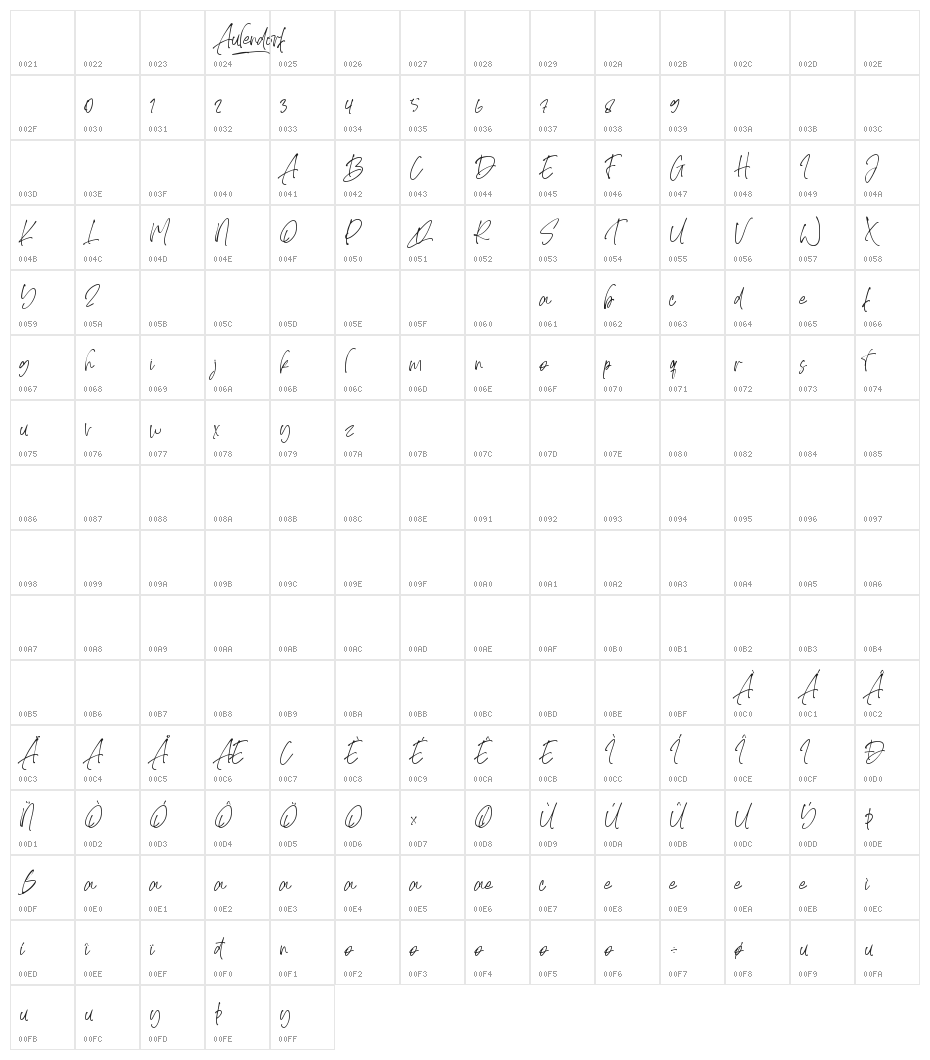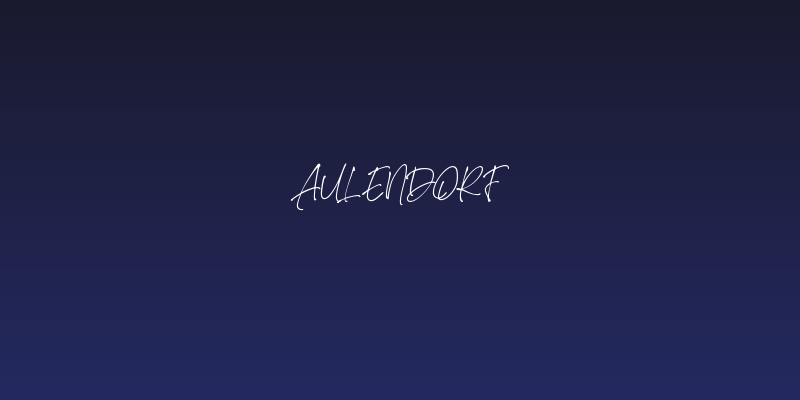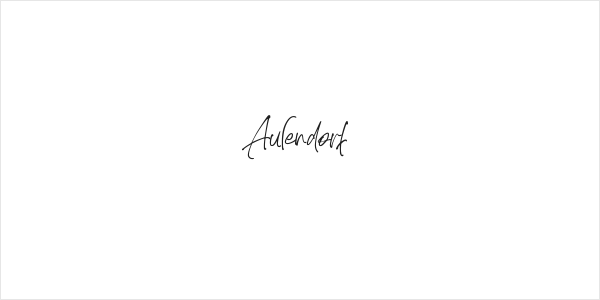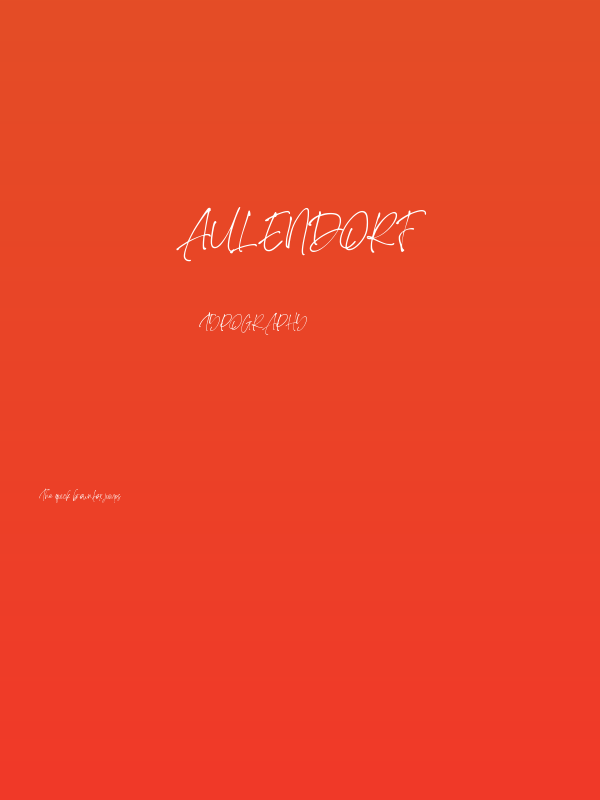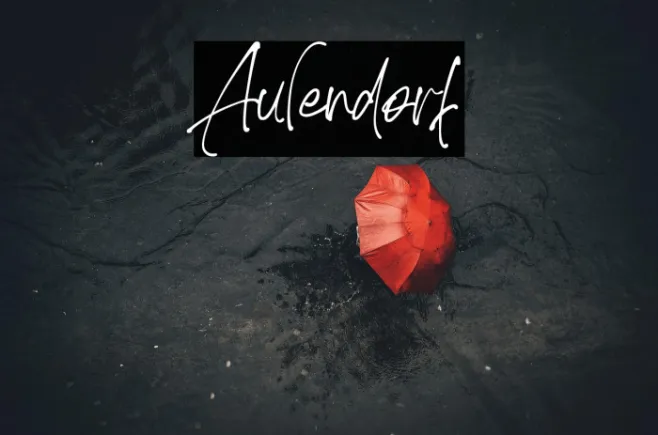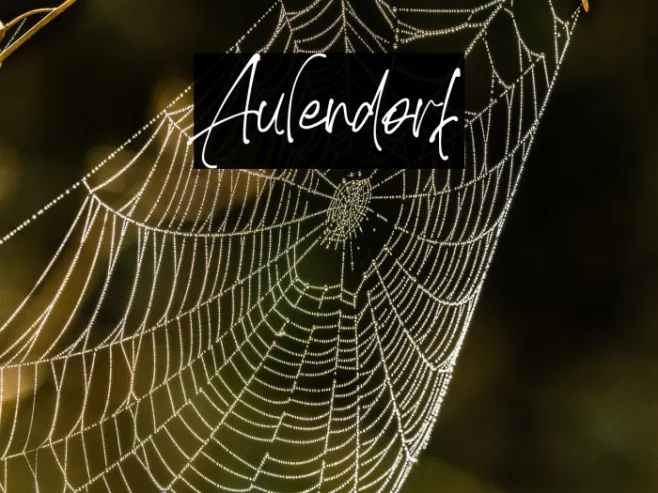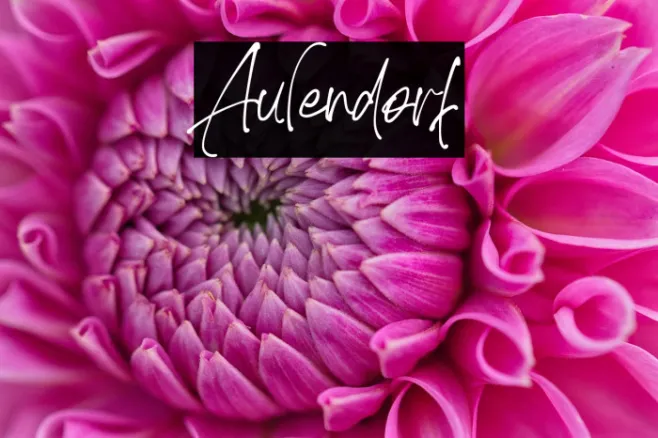
Aulendorf Font
Aulendorf Description
This font exudes a lively and expressive handwritten style, characterized by its fluid and dynamic strokes. The letters are crafted with a natural flow, giving an impression of personal touch and creativity. The uppercase and lowercase letters maintain a consistent style, with elongated ascenders and descenders that add elegance and flair. The numerals and special characters are designed to complement the overall aesthetic, ensuring a cohesive look. This font is perfect for projects that require a personal, artistic touch, such as invitations, greeting cards, or branding materials.
| Proposed Projects | Ideal for invitations, greeting cards, branding, and artistic projects. |